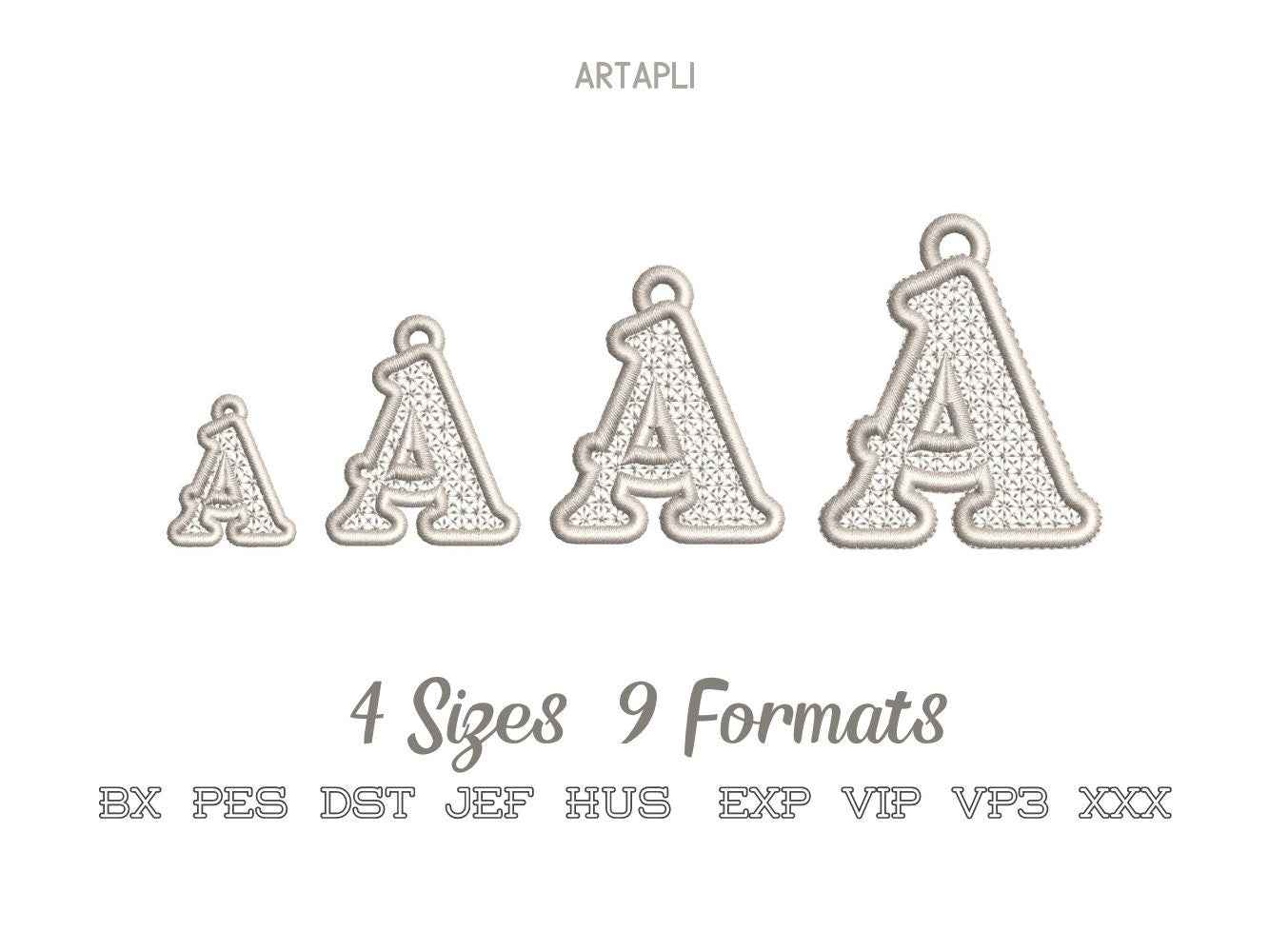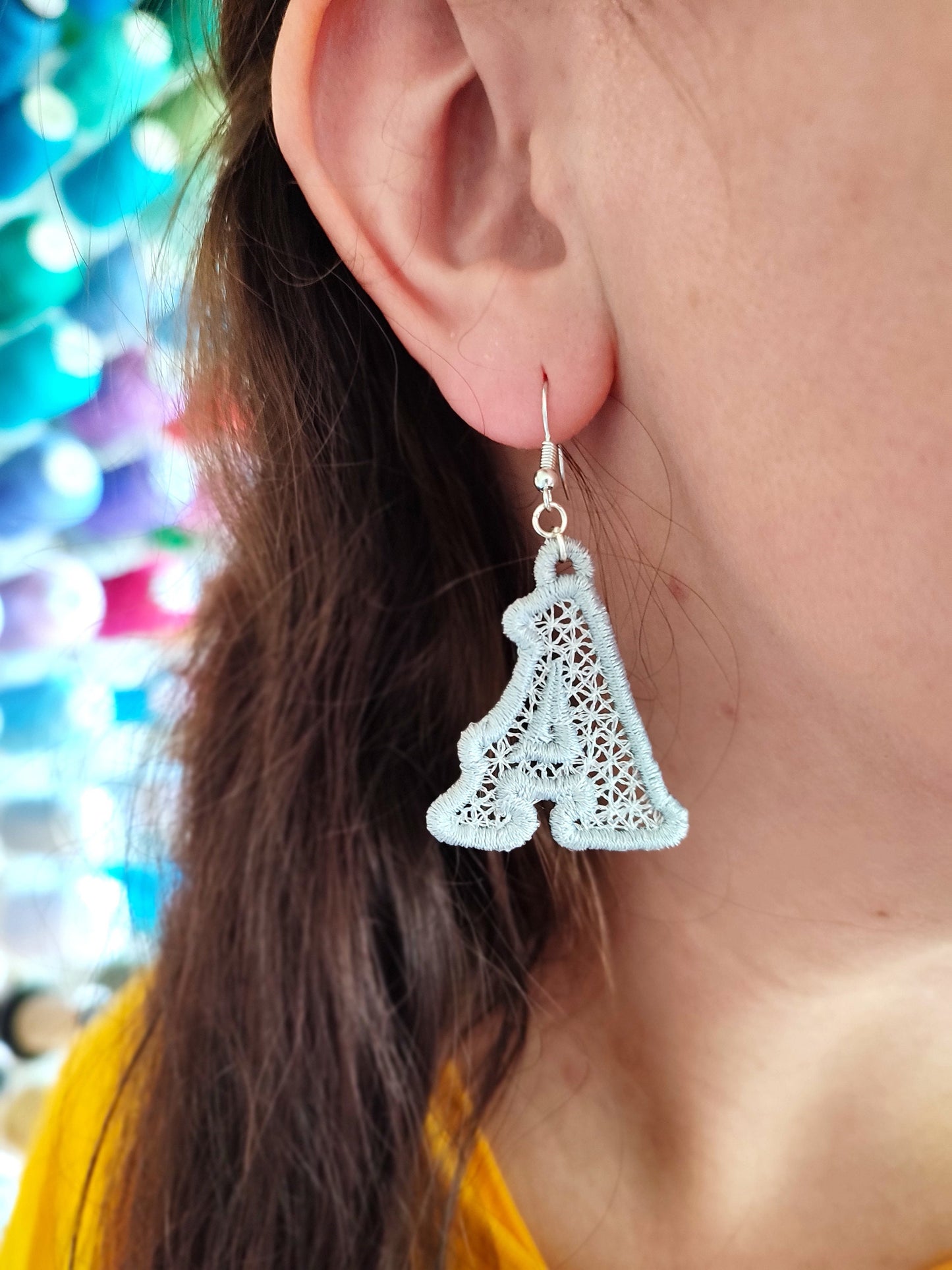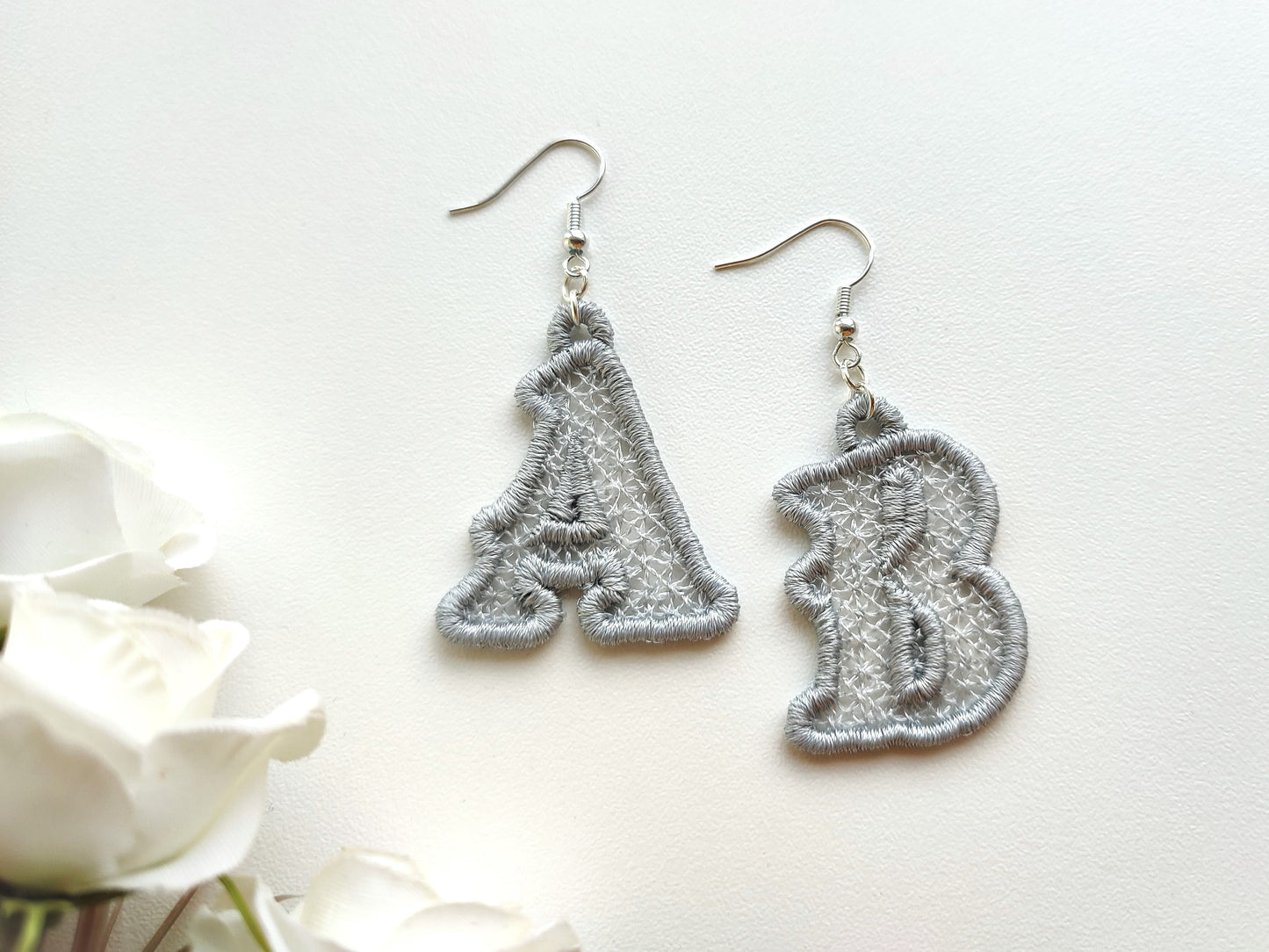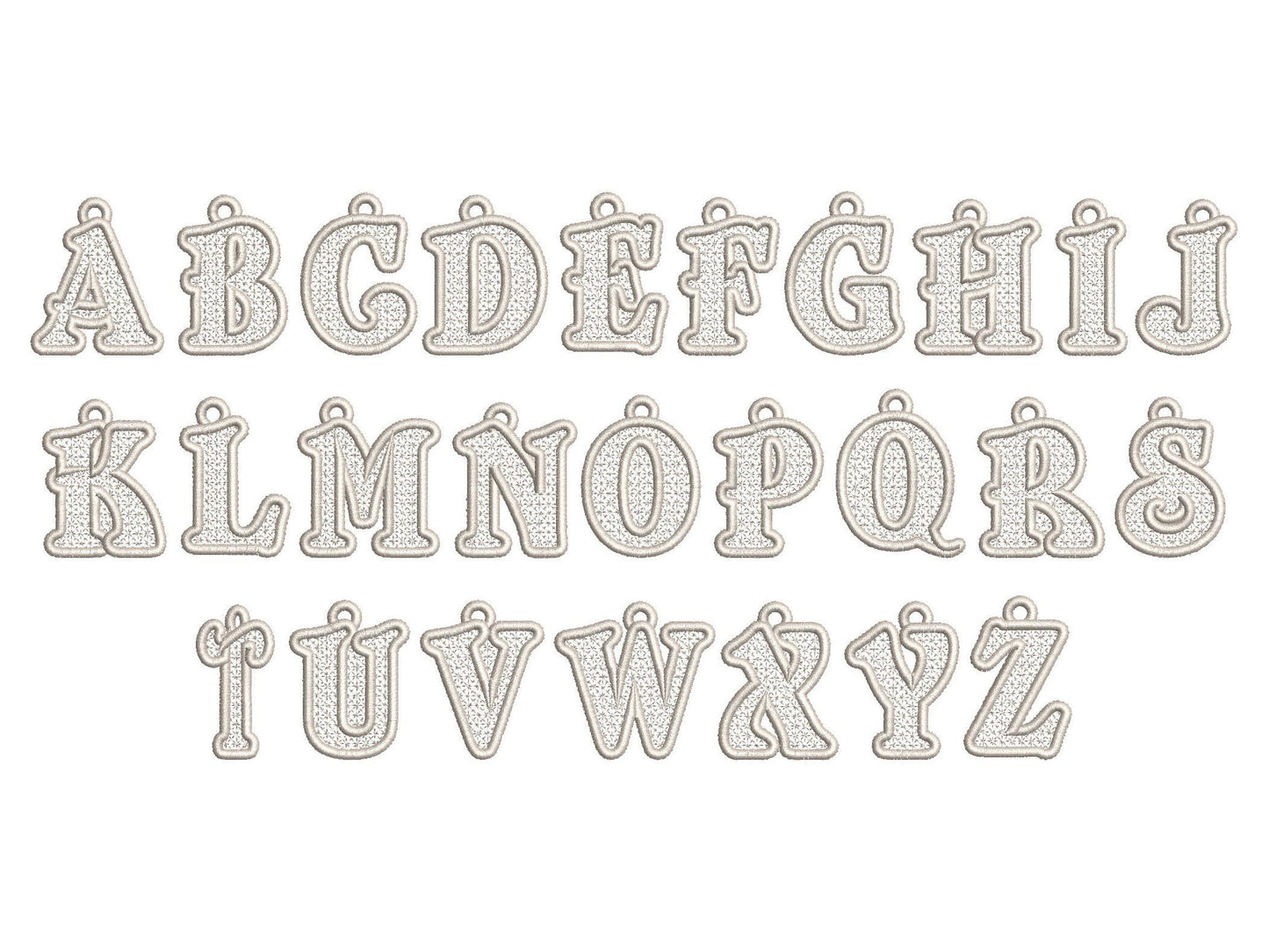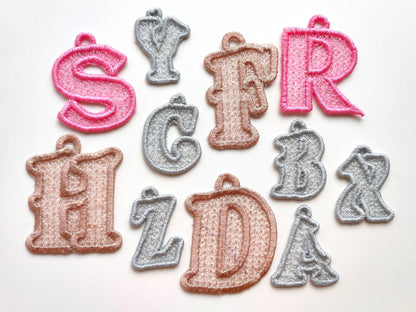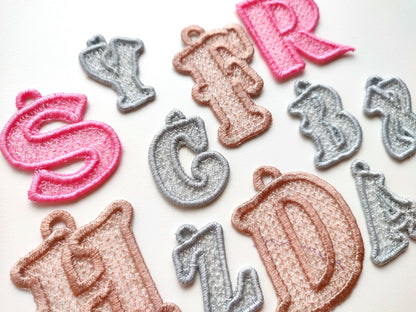
Or click to open the linkFreestanding lace initials that hang, for charm earrings, key rings, bag charms and little gifts.
Uppercase A to Z in four sizes: 1, 1.5, 2 and 2.5 inches. Stitched on water-soluble stabilizer, then rinsed, so no fabric is needed.